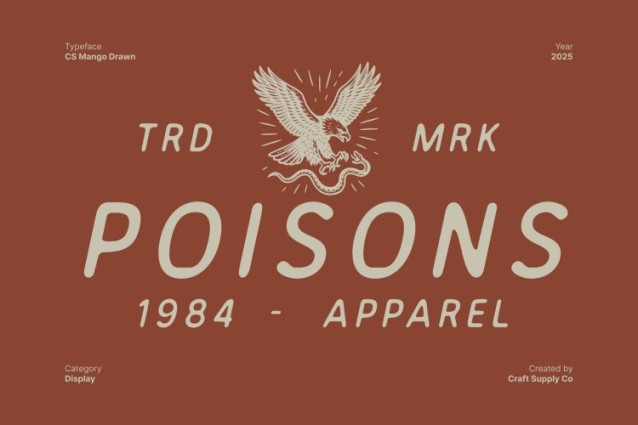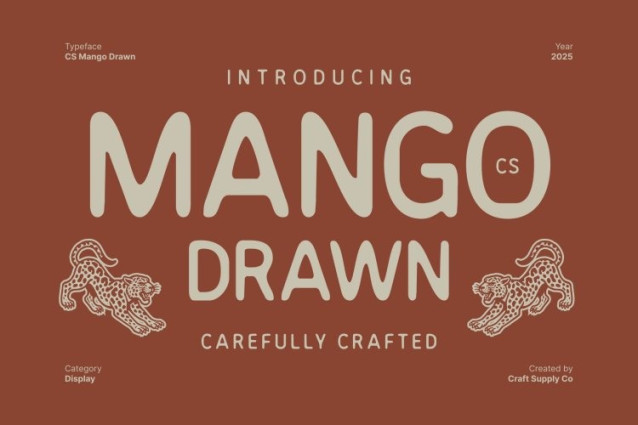
CS Mango Drawn Font
CS Mango Drawn Font This is a modern sans serif font infused with retro personality and a warm, hand-drawn spirit. Its rounded edges and softly shaped forms create a friendly, approachable look that feels both personal and contemporary. The retro influence adds nostalgic charm, while the clean structure keeps the design fresh and modern, making this font an inviting choice for creative projects.
Hand-Drawn Effect for Natural Authenticity
Experience the gentle handcrafted feel of this font. The drawn effect softens its geometric lines, introducing natural texture and expressive character. This subtle imperfection brings life to the font, allowing every letter to feel human, warm, and visually engaging.
Soft Edges for Smooth Readability
The smooth, soft edges of this font enhance its readability while keeping its playful tone intact. This blend of clarity and charm makes the font easy to use across various media. Its gentle curves and balanced proportions create a calming visual flow, ideal for modern layouts that need personality without losing professionalism.
Ideal for Editorials, Digital Design, and Branding
This font thrives in editorial projects, digital interfaces, and modern branding. Its approachable style enhances magazine titles, website headers, social media visuals, and lifestyle branding with ease. This font delivers a fresh, stylish, and naturally artistic tone that elevates every project.